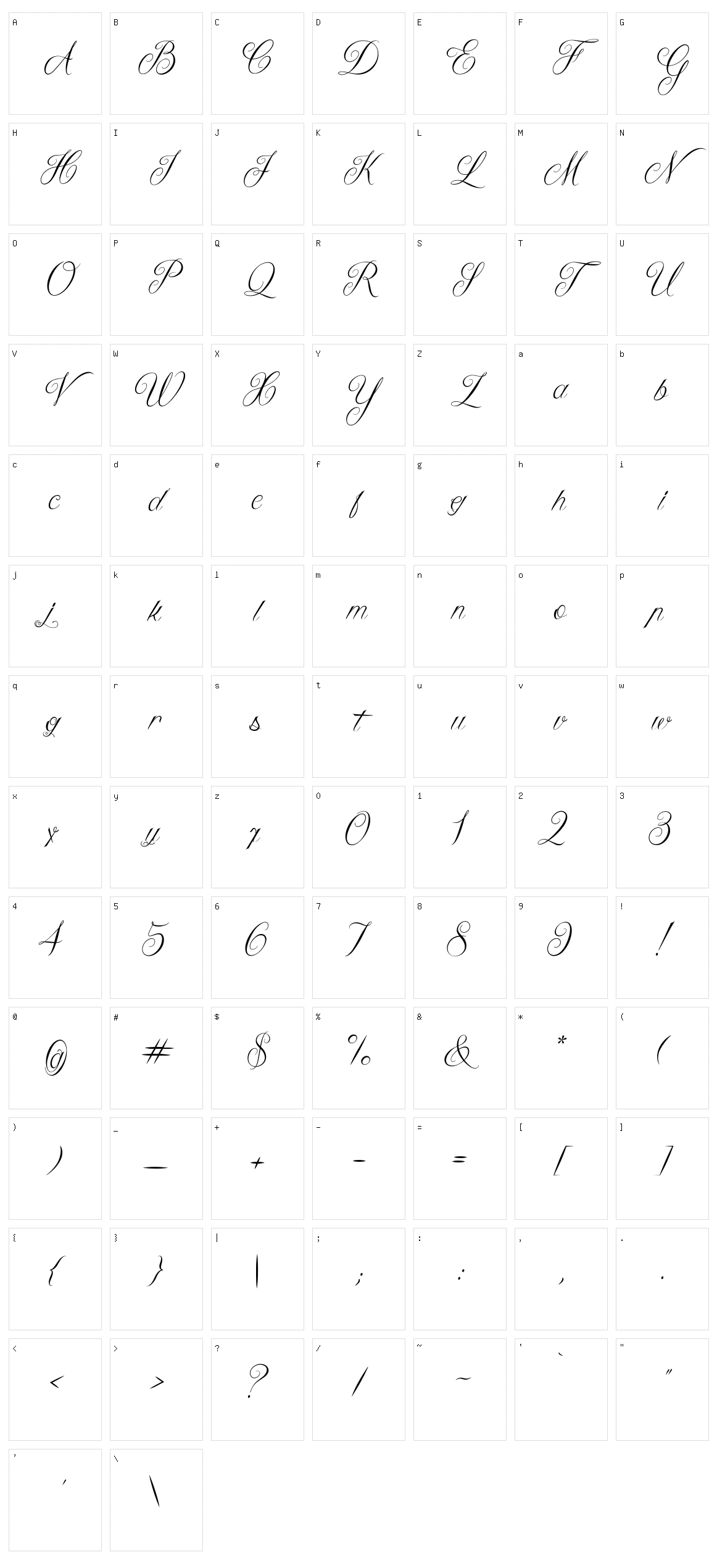
The free font Queen of the Moon is carefully designed by Maelle.K & Youssef Habchi, showcasing a thoughtful balance of creativity and usability and falls under the Script font style. When you download the ZIP file, it contains only 85.7 KB of font files, making it lightweight and quick to download. Please review the license details below to understand permitted usage and distribution rights. If license information is not available, we recommend using this font for personal projects only or contacting the author directly for commercial usage permissions.